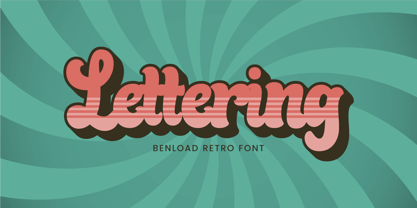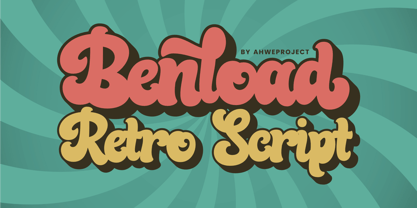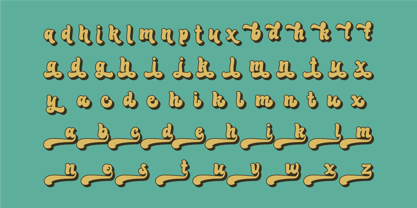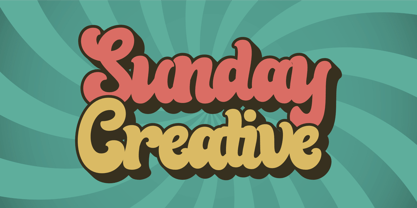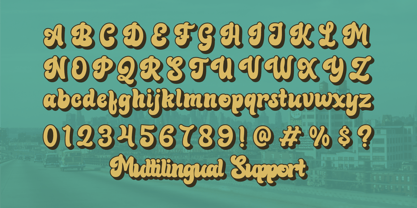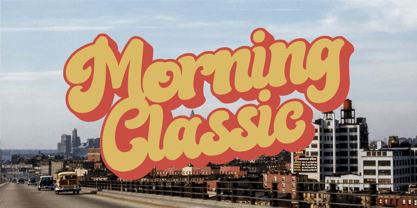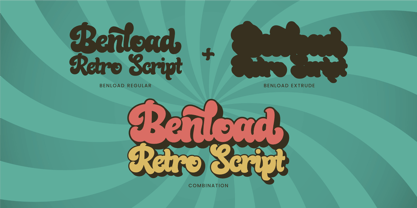
Benload
by ahweproject
The Benload Font Family was designed by Dida Ahluddin and published by ahweproject. Benload contains 2 styles and family package options.
Benload is a bold and retro-styled font. This font reads strong, confident, and dynamic and can add tons of nostalgic character to your designs. Add it to your vintage-inspired posters, stickers, apparel, or social media posts and you will impress your audience.
This font is PUA encoded, which means you can access all of the glyphs and swashes with ease!
Features :
• Uppercase & lowercase
• Numbers and punctuation
• Multilingual
• Alternates
• PUA encoded